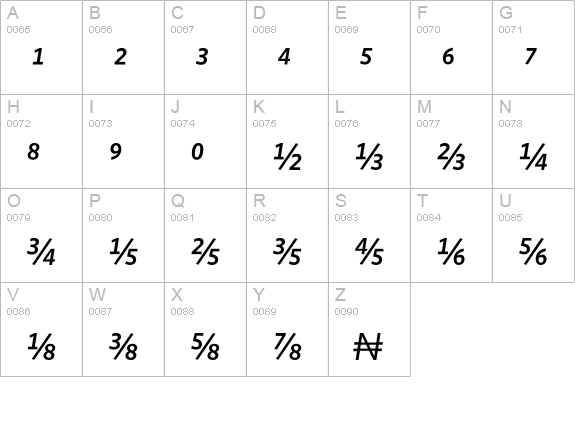
WhitneyNumeric-MediumItalic is a sleek and modern font that adds a touch of sophistication to any project. Its medium weight gives it a balanced and versatile look, making it suitable for various design purposes. This font is perfect for those who want to add a professional and refined touch to their work. The italicized style adds a sense of elegance, making it ideal for headings, subheadings, and other prominent text elements. Its clean and distinct letterforms ensure readability in both print and digital formats. One of the best things about WhitneyNumeric-MediumItalic is that it is freely available to download at FontsMarket.com. This means that you can effortlessly enhance your designs without any additional cost. Whether you're a graphic designer, web developer, or simply an enthusiast, this font offers you the opportunity to elevate your creations without breaking the bank. With WhitneyNumeric-MediumItalic, you can bring a sense of sophistication and professionalism to any project. Its free availability makes it a go-to choice for designers looking to create visually appealing and impactful designs. Download this font today at FontsMarket.com and experience the difference it can make in your design journey.